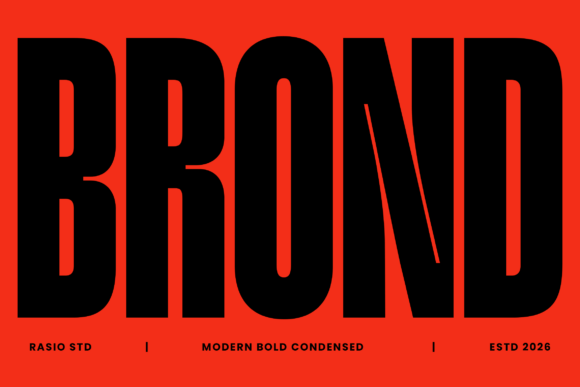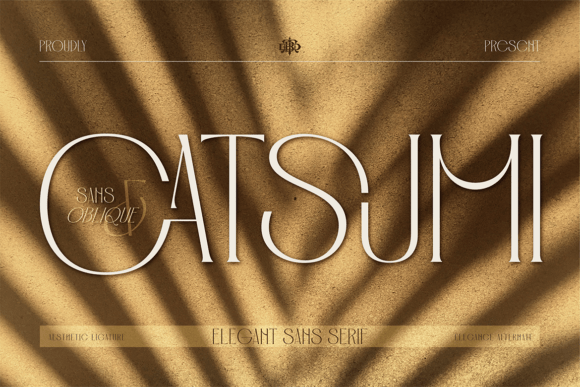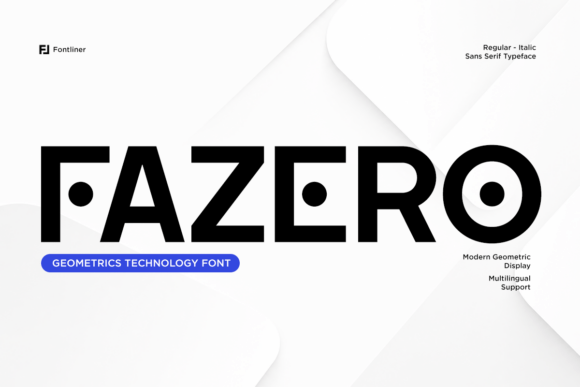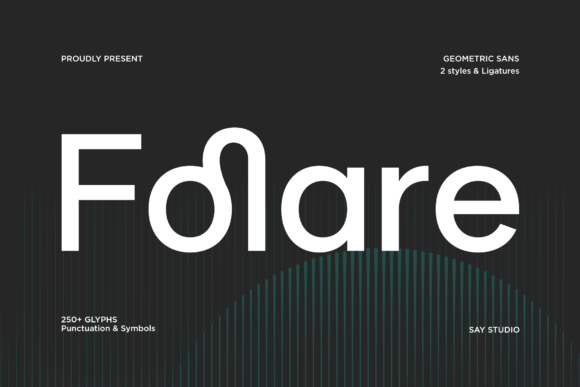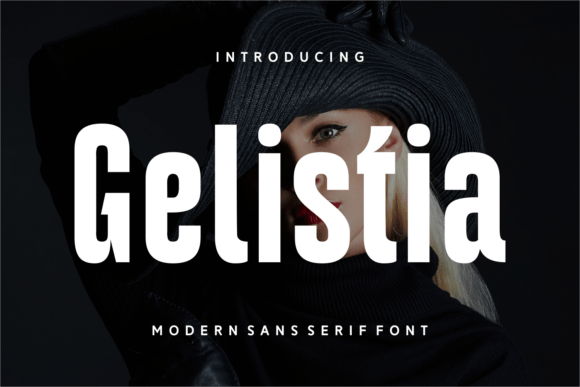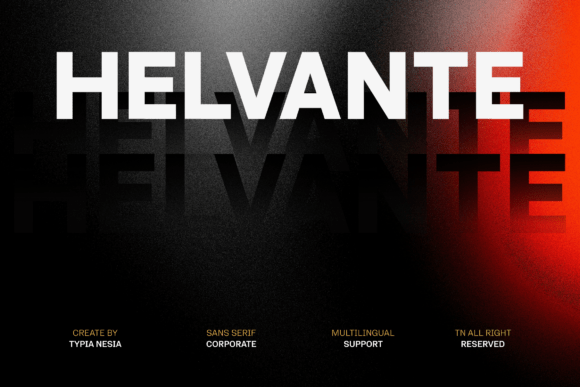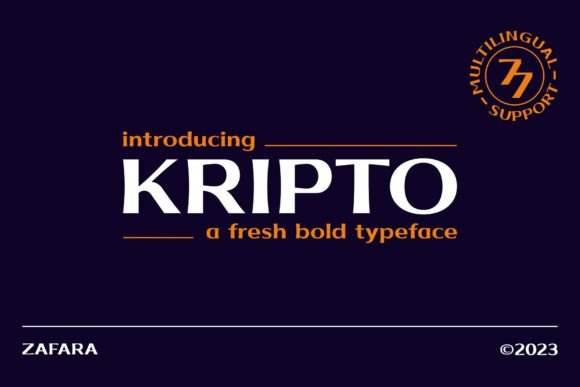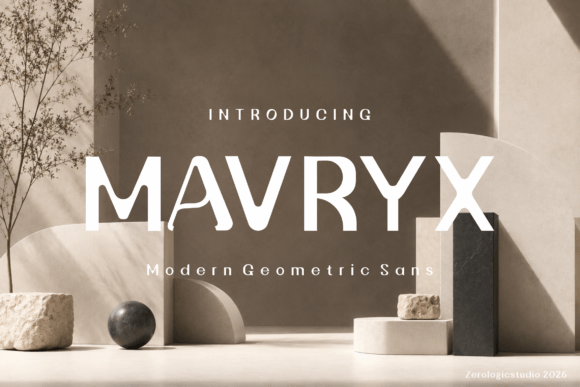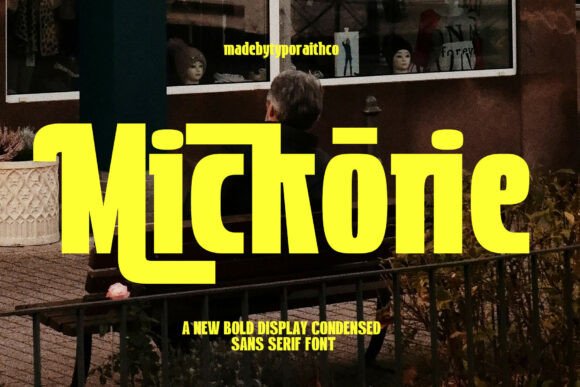
Sans serif fonts do the unglamorous work in a brand system. They carry the product descriptions, the navigation, the legal text and the packaging fine print, which means the choice matters far longer than a display face ever will. These sixteen recent releases are assessed on the qualities that decide whether a sans survives that role, rather than on how they look in a specimen image.
What Separates a Brand Sans From a Display Sans
Weight count. A single-weight release limits you to one role. Brand systems need a regular and a bold minimum, ideally a light for large display use. This is the fastest way to eliminate half the options.
Spacing. Display faces are spaced tightly, assuming large sizes. Set one at body size and the letters crowd visibly. Text faces are spaced for reading, which makes them look loose in a headline. Very few families do both well.
Character coverage. Accented characters, currency symbols and proper punctuation are expensive to draw and frequently missing from cheaper releases. If your brand operates in more than one language, check before buying.
Lowercase at small size. Everyone judges from capitals in a specimen image, and almost all real reading happens in lowercase. Geometric faces in particular can blur o, c and e at caption scale.
On the condensed trend. Three of the sixteen fonts below are bold condensed display faces, which reflects how thoroughly that style now dominates brand design. Widespread adoption means low differentiation, so if your brief is to stand out rather than to look current, consider a grotesk or an extended face instead.
16 New Sans Serif Fonts
Bold Condensed
1. Brond
Brond is a modern bold condensed face built for total visual dominance. Condensed sans has become the default for contemporary brand identity, and there is a practical reason beyond fashion.
Narrow letterforms fit more characters per line at a given height, which matters enormously on packaging, app icons and mobile layouts where horizontal space is the constraint. A wide face forces you to reduce size, and reducing size is what makes a brand mark disappear.
My take: Condensed dominates modern branding because screens are narrow. Wide faces force you to shrink the name.
Contemporary Display
2. Vasted
Vasted is a bold contemporary sans display face aimed at designers wanting immediate impact. Display sans differs from text sans in one measurable way: the spacing.
Display faces are spaced tightly, assuming large sizes where gaps look generous. Set one at body size and the letters crowd. If you need a family that works across both, check whether the release includes separate display and text cuts rather than assuming one covers both.
My take: Display sans is spaced for large sizes. Using it for body copy makes the letters look crowded.
Tech Authority
3. Kripto
Kripto commands modern tech confidence with crisp visual clarity. Tech-positioned sans faces share a specific set of decisions: squared terminals, tight apertures and geometric consistency.
Those choices read as engineered rather than drawn, which is exactly the association fintech, SaaS and hardware brands want. The trade-off is warmth. Geometric precision reads as competent and cold, so if your brand needs approachability this is the wrong direction.
My take: Geometric precision reads as competent and cold. Fine for fintech, wrong for anything that needs warmth.
High Impact Condensed
4. Primate
Primate is a raw high-impact condensed display sans engineered for maximum presence. Raw in this context usually means slightly irregular terminals or uneven optical weight, deliberately left in.
That roughness is what separates a display sans with character from a generic bold condensed face. The commercial risk is that irregularity reads as poor drawing to some clients, so it works better on self-directed projects than on conservative brand work.
My take: Deliberate roughness reads as character to designers and as sloppiness to conservative clients. Know your audience.
Corporate Editorial
5. Helvante
Helvante is a modern corporate sans built for branding and editorial design. Corporate sans has requirements that display sans ignores entirely.
It needs multiple weights, a complete character set including currency symbols and accented characters, and spacing tuned for continuous reading. Those are expensive to produce, which is why genuinely usable corporate sans families cost more than display faces with a similar look.
My take: Corporate sans costs more because it needs weights, coverage and tuned spacing. Display faces skip all three.
Geometric Balance
6. Folare
Folare is a modern geometric sans with clean forms and balanced proportions. Geometric sans carries one readability caveat worth checking before committing.
How many sans serif fonts should a brand use?
One family, used across multiple weights. Two unrelated sans faces in one system look like an accident rather than a decision.
Can I use a display sans for body text?
Not comfortably. Display faces are spaced tightly for large sizes, so at body size the letters crowd. If a family does not ship a separate text cut, assume it is display only.